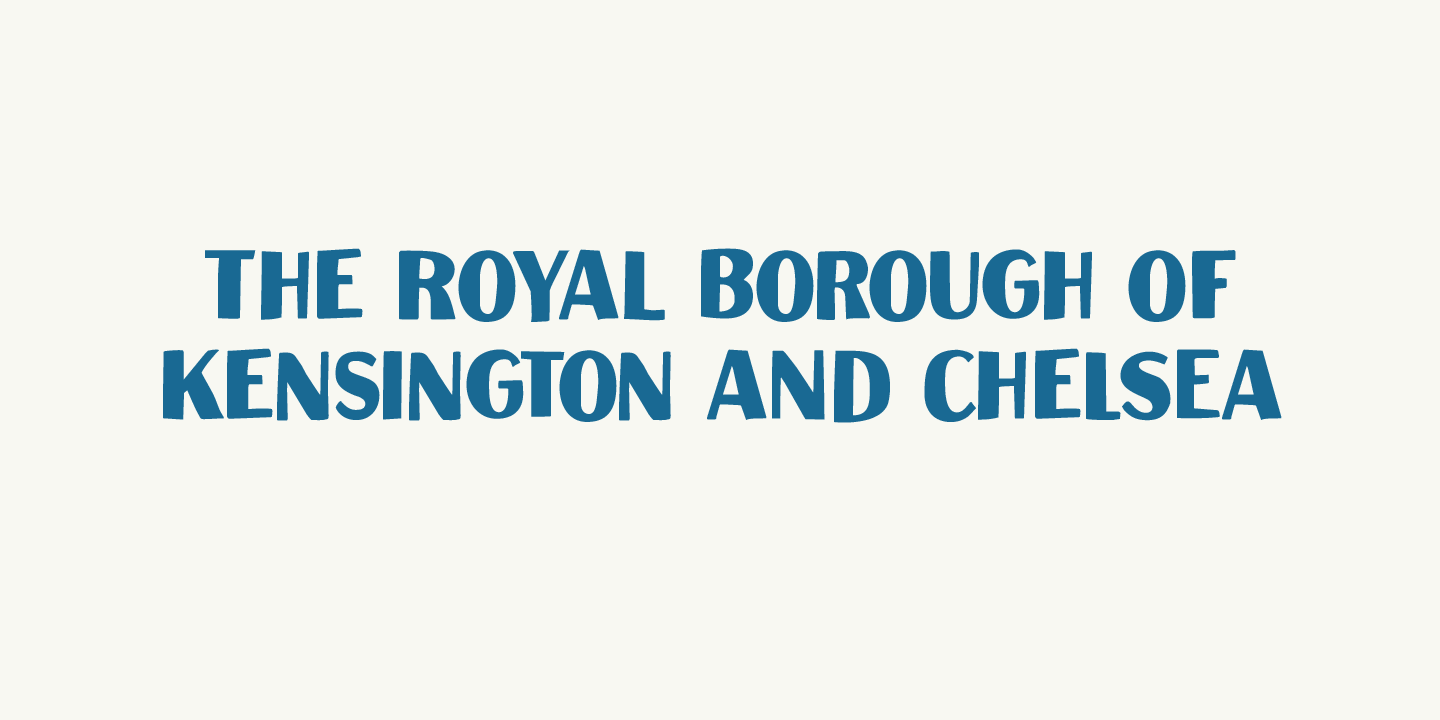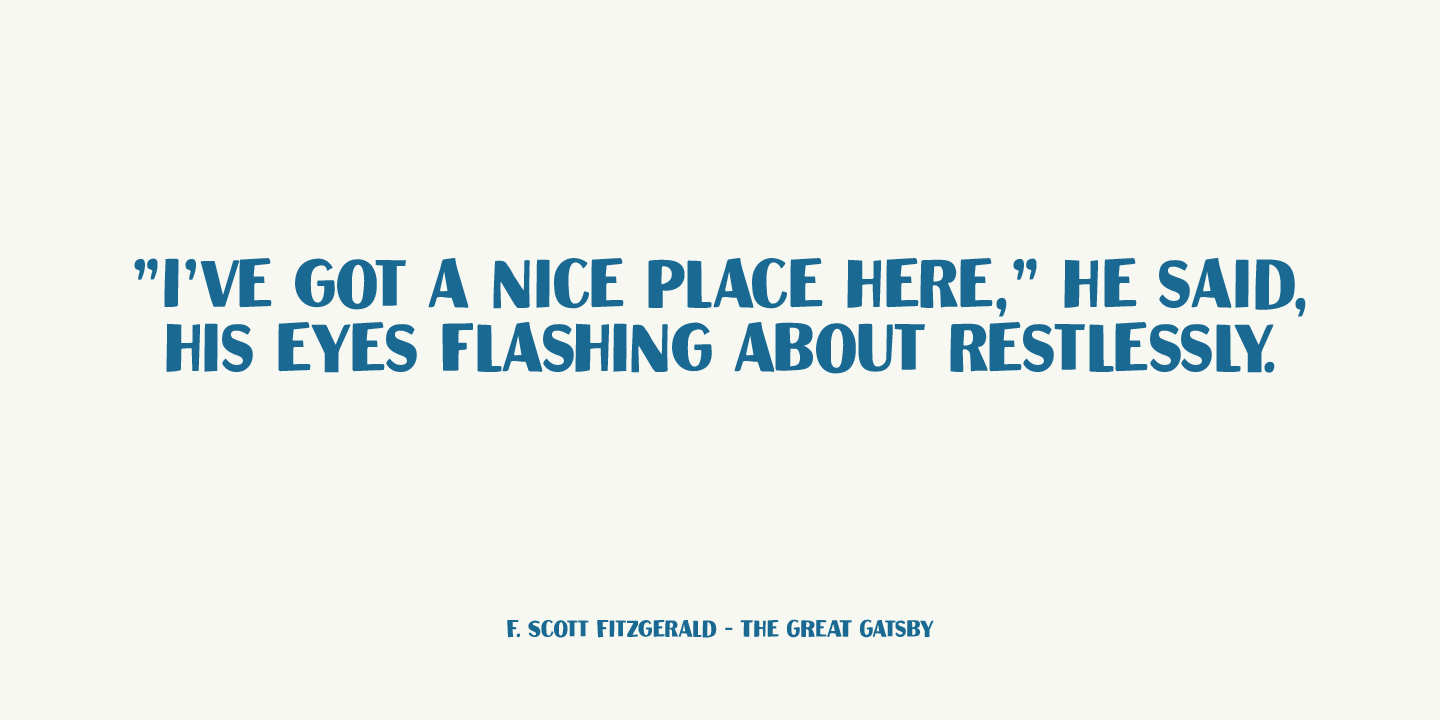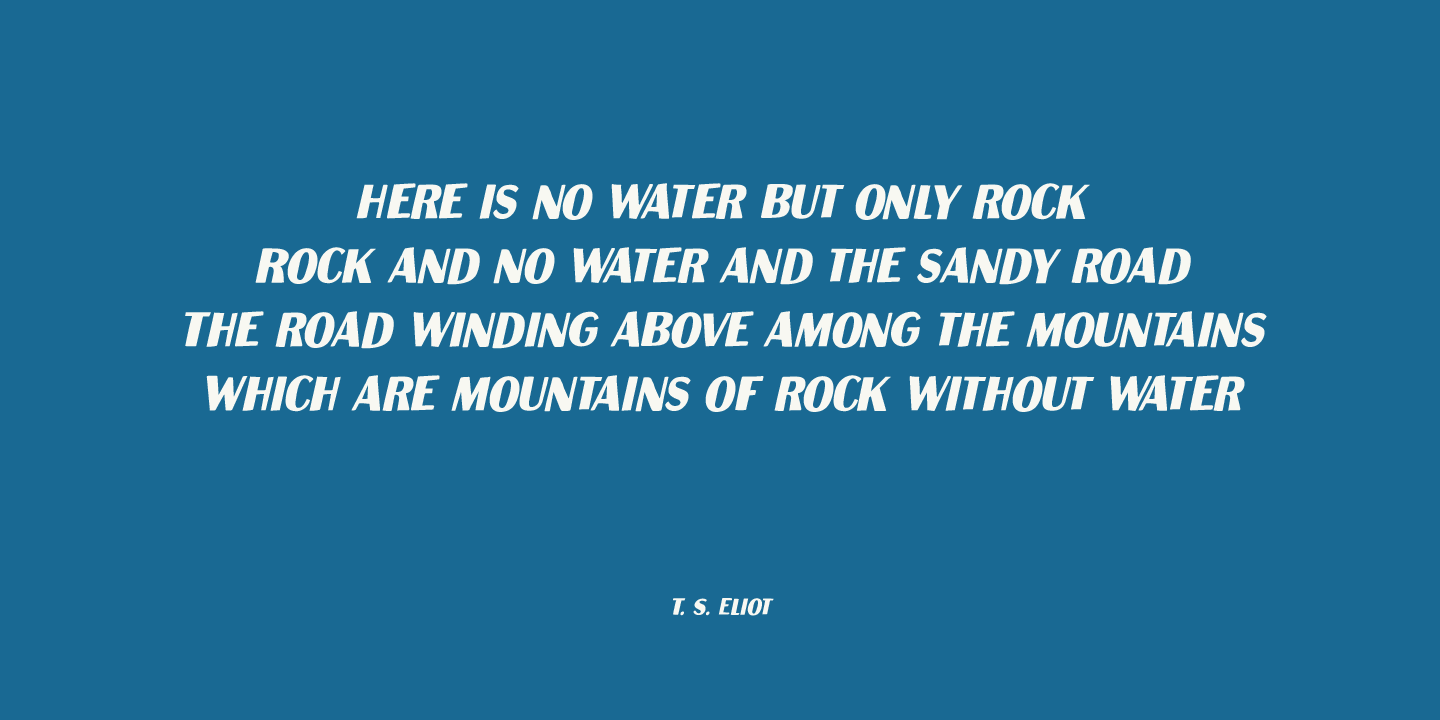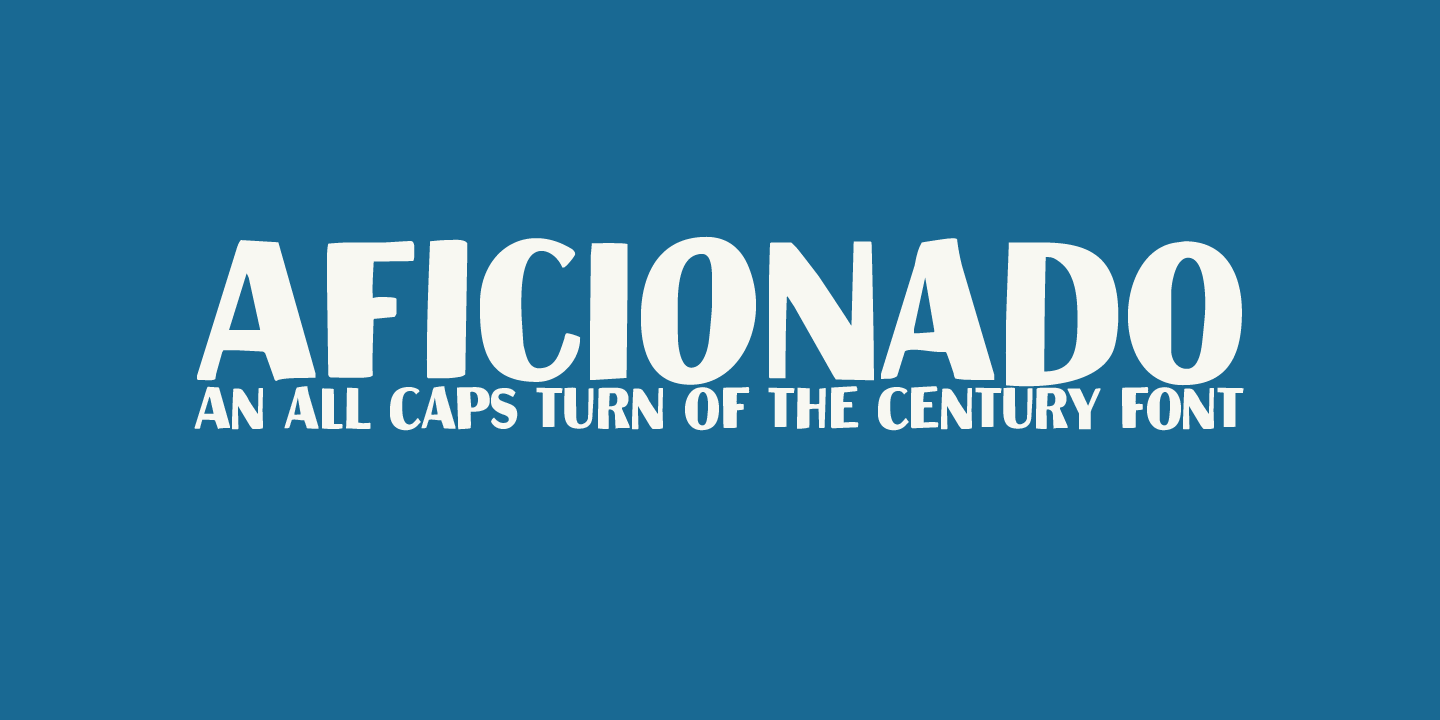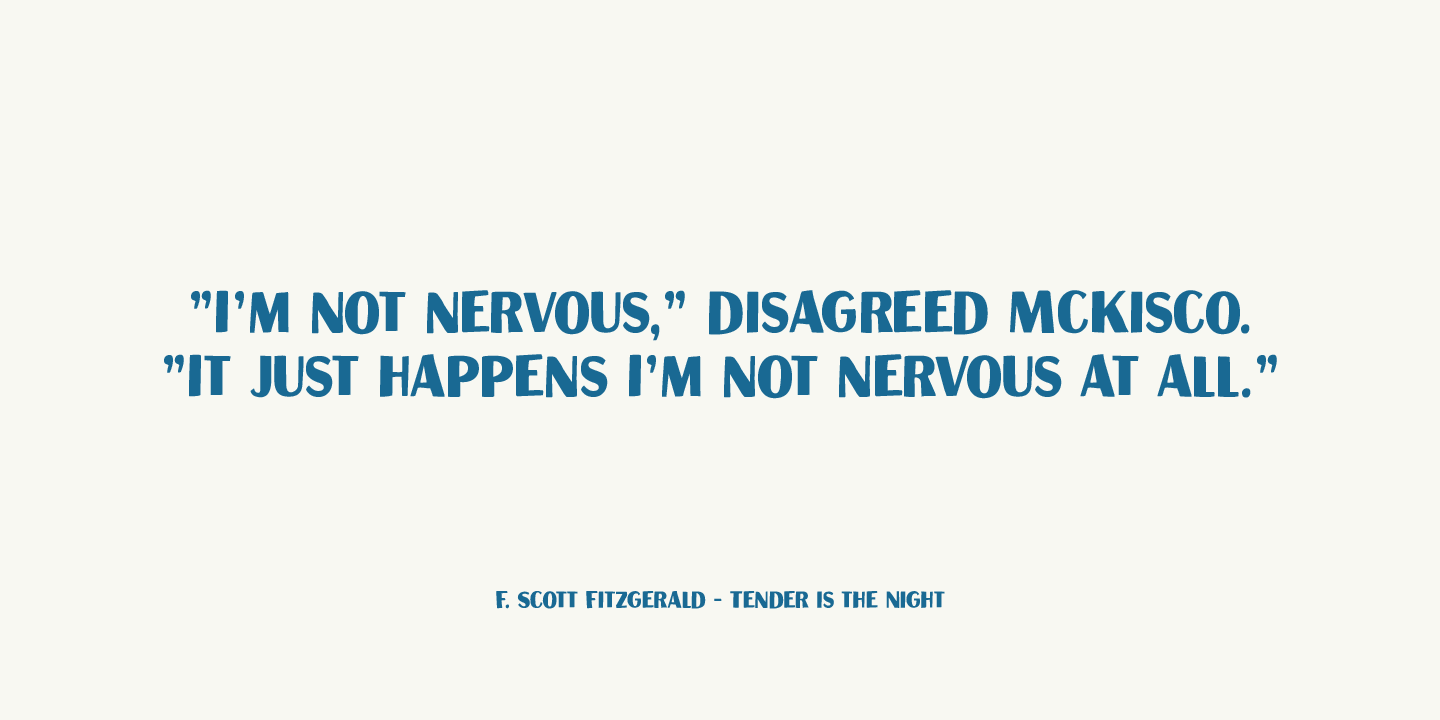
Aficionado
About Aficionado
Aficionado is a hand drawn font, modeled after classy turn of the century typefaces. It is a very legible all-caps font which will certainly give your designs an elegant look!